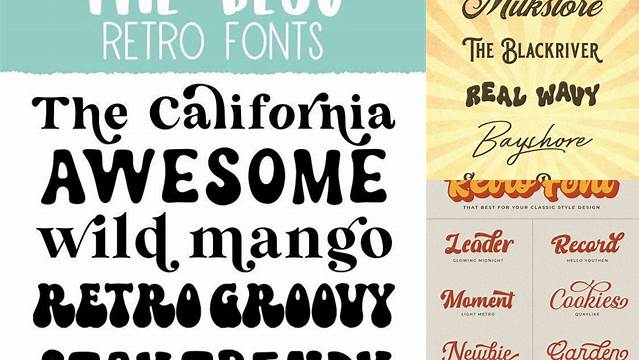
Best Retro Fonts For Word: Vintage Style Guide
Are you looking to add a touch of vintage charm to your documents? Retro fonts can bring a unique and stylish flair to your work, whether you're creating posters, invitations, or simply want to give your text a classic look. In this article, we'll explore some of the best retro fonts you can use on Word, helping you make your projects stand out. Guys, let's dive into the world of retro typography!
What Makes a Font Retro?
Before we jump into specific fonts, let's understand what makes a font retro. Retro fonts typically evoke styles from past decades, such as the 1950s, 1960s, 1970s, and 1980s. These fonts often feature distinctive characteristics, including bold shapes, script styles, and unique serifs. Think of the fonts used in old movie posters, vintage advertisements, and classic book covers – these are the kinds of aesthetics we're aiming for. The key is to find a font that not only captures the essence of a particular era but also remains readable and suitable for your project. Whether it’s a groovy, psychedelic vibe from the '70s or a sleek, futuristic look from the '80s, retro fonts can add personality and character to your text.
Consider these elements when identifying a retro font:
- Serifs: Fonts with exaggerated or unique serifs, like the slab-serifs popular in the mid-20th century, often have a retro feel.
- Scripts: Cursive and script fonts, especially those with a flourished or handwritten appearance, can evoke vintage elegance.
- Boldness: Many retro fonts are bold and attention-grabbing, reflecting the advertising styles of their respective eras.
- Geometric Shapes: Fonts with strong geometric shapes were popular in the mid-century modern design movement.
- Color Palette: While the font itself is the primary element, consider pairing it with retro color schemes (think avocado green, mustard yellow, and burnt orange) to enhance the overall effect. These colors can complement the font and strengthen the retro aesthetic.
By understanding these characteristics, you can better identify and select the perfect retro font for your needs. So, let’s move on to exploring some of the best retro fonts that you can easily use in Word.
Top Retro Fonts for Word
When selecting retro fonts for Word, it’s essential to consider both aesthetics and readability. You want a font that looks great but also ensures your text is easy to read, especially for longer documents. Here are some top retro fonts that work well in Word, categorized by style to help you find the perfect fit:
Script Fonts
Script fonts are excellent for adding a touch of elegance and personality to your work. These fonts often mimic handwriting or calligraphy, making them ideal for invitations, headings, and branding materials. Let's explore some fantastic script fonts that bring a retro vibe.
Lobster: This bold, condensed script font is a popular choice for its retro diner feel. Lobster is highly readable and works well for headlines and titles. Its rounded forms and flowing lines evoke the classic signage of the 1950s and 1960s, making it a great option for projects that need a vintage yet approachable look. Think of old-school burger joints and soda shops – Lobster captures that essence perfectly.
Pacifico: With its flowing, connected letters, Pacifico has a casual, beachy vibe reminiscent of vintage surf culture. This font is perfect for projects that need a relaxed and friendly touch. Pacifico's smooth curves and rhythmic flow make it highly legible, even at smaller sizes. It’s a fantastic choice for blog headers, social media graphics, and anything that needs a laid-back, retro feel. Imagine the opening credits of a classic surf movie, and you'll get a sense of Pacifico's style.
Great Vibes: If you’re aiming for a more elegant and formal retro look, Great Vibes is an excellent choice. This beautifully flowing script font is perfect for invitations, announcements, and other special occasions. Great Vibes features delicate swashes and loops that add a touch of sophistication and class. Its refined appearance makes it ideal for projects that require a touch of vintage glamor, such as wedding invitations or upscale branding materials. Think of vintage Hollywood movie posters, and you'll understand the elegance of Great Vibes.
Slab Serif Fonts
Slab serif fonts are characterized by their thick, block-like serifs, giving them a bold and sturdy appearance. These fonts were highly popular in mid-20th-century advertising and design, making them a great choice for retro projects. Let's look at some top slab serif options.
Roboto Slab: This modern slab serif font has a clean and legible design, making it a versatile choice for various projects. Roboto Slab balances a contemporary feel with a subtle retro touch, making it suitable for both headlines and body text. Its sturdy serifs give it a confident and grounded appearance, reminiscent of classic newspaper headlines and book covers. Roboto Slab is an excellent option for projects that need a reliable and readable font with a hint of vintage charm.
Arvo: With its geometric design and strong serifs, Arvo exudes a mid-century modern aesthetic. This font is perfect for creating a bold and impactful statement. Arvo’s clean lines and sturdy structure make it highly legible, even in smaller sizes, making it ideal for both print and digital applications. Its bold appearance is perfect for logos, posters, and headlines that need to grab attention. Think of vintage product packaging and advertising, and you'll see the influence of fonts like Arvo.
Using retro fonts in Word is a fantastic way to add personality and style to your documents. By understanding what makes a font retro and how to use it effectively, you can create visually appealing and engaging projects. Whether you're designing a poster, creating an invitation, or simply want to give your document a unique look, the right retro font can make all the difference. So go ahead, guys, experiment with these fonts and bring a touch of vintage charm to your work!